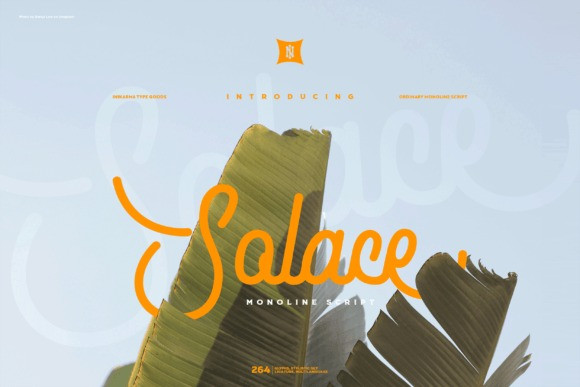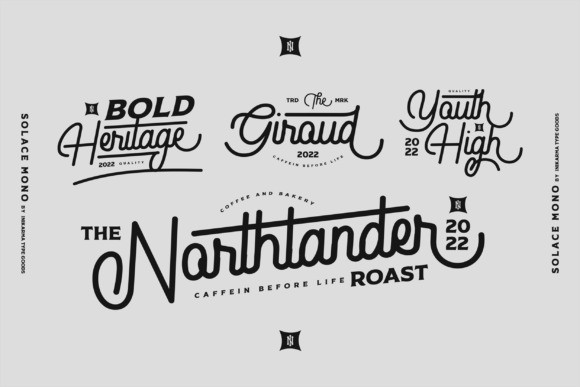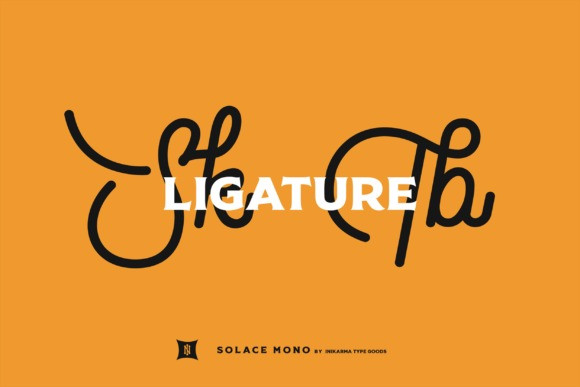
Solace Font
Solace is an ordinary monoline script font, maximally used for making a logo or title that stands above a few words for its use. Experimenting is the key in this font, there are stylistic sets and ligatures that will make it easier for you to experiment and get good results. This font is PUA encoded, which means you can access all of the glyphs and swashes with ease!